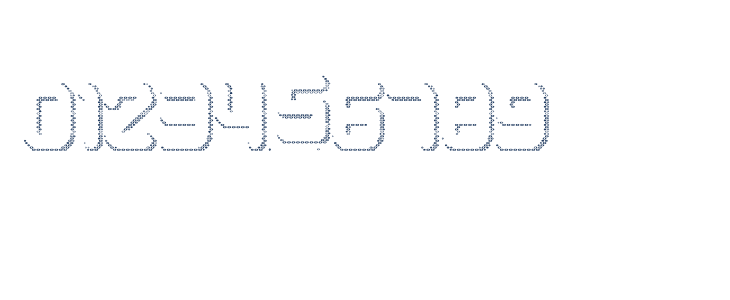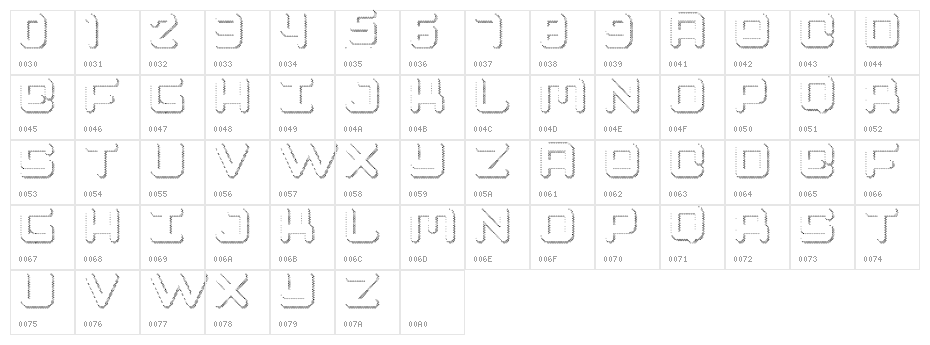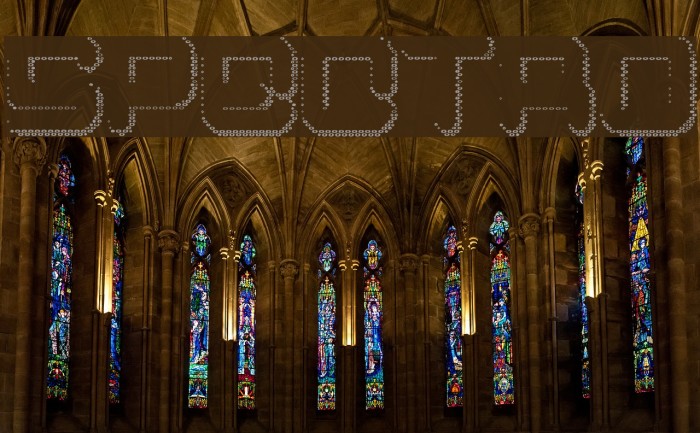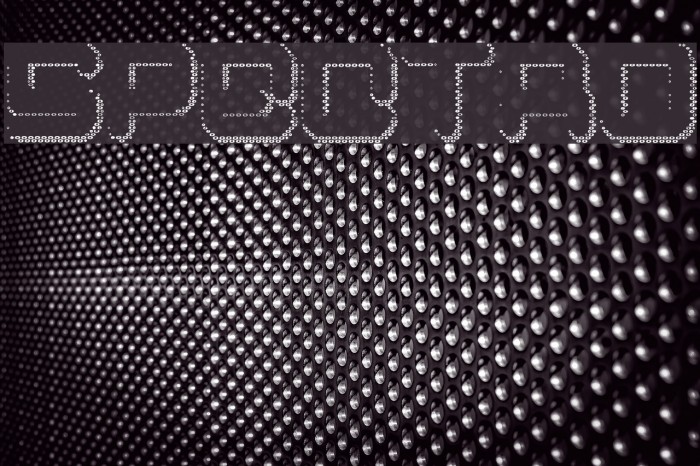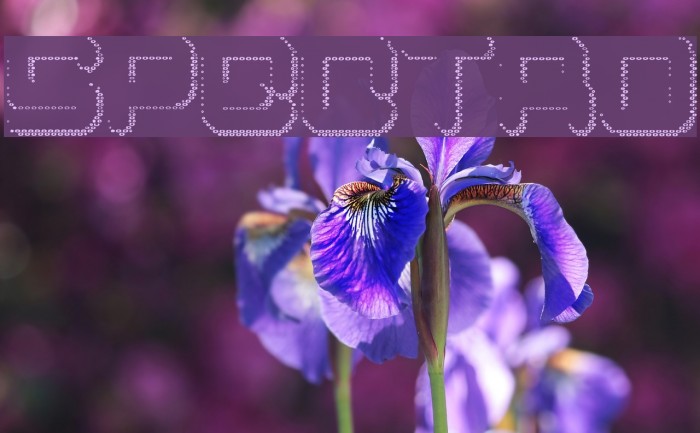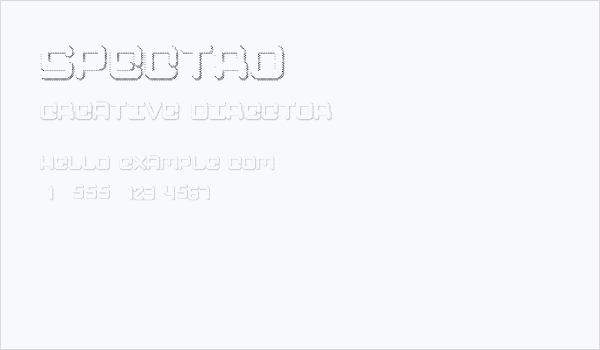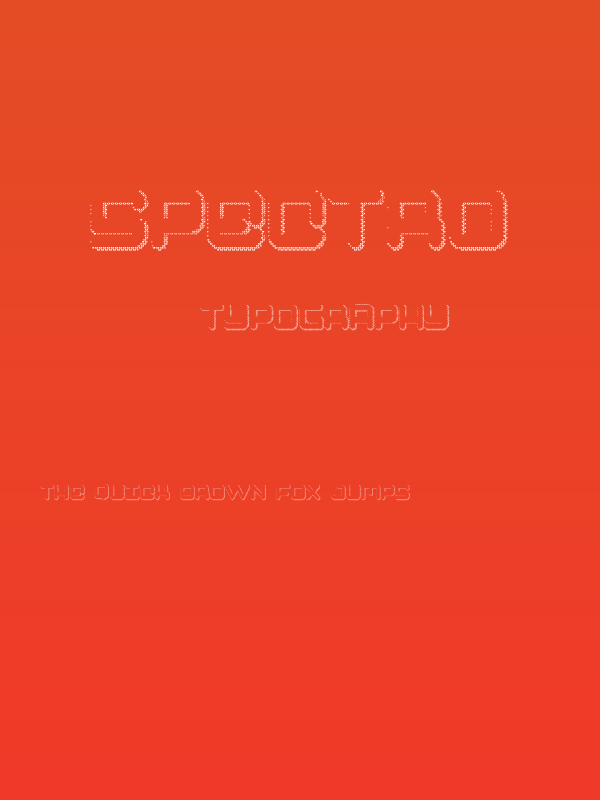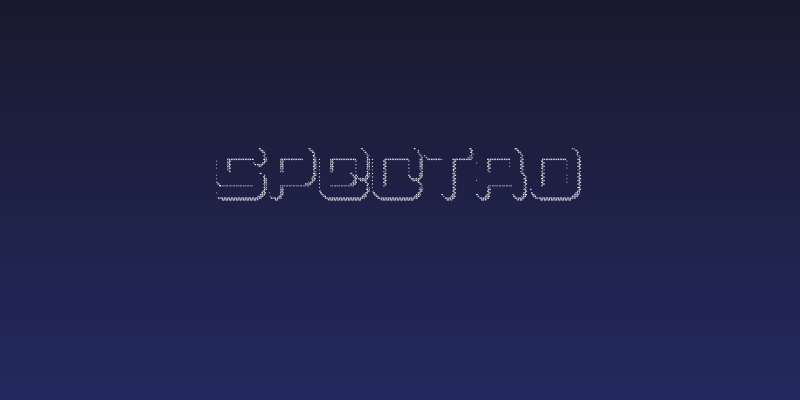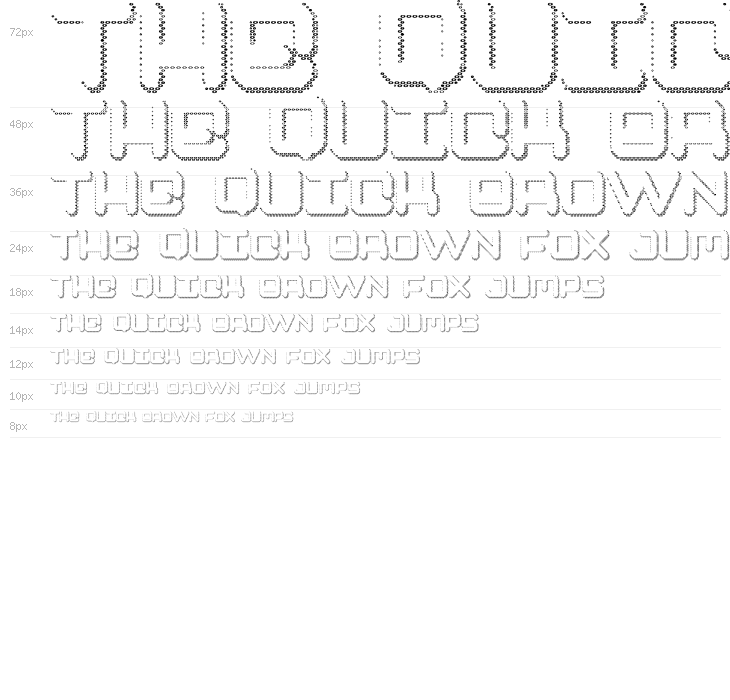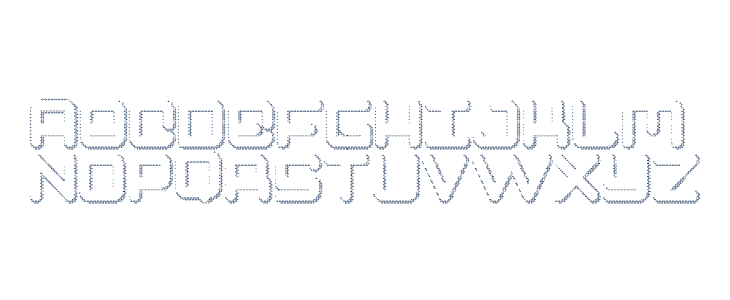
Spectro Font
Spectro Description
This font features a unique, futuristic design with a dotted, pixel-like appearance. Each character is composed of small, evenly spaced dots that form the shape of the letter or number, giving it a digital and modern aesthetic. The characters are uniform in height and width, creating a cohesive and structured look. The style is reminiscent of early digital displays or LED screens, making it ideal for projects that require a tech-savvy or retro-futuristic vibe. The font maintains legibility despite its unconventional form, with clear distinctions between each character. Its geometric structure and consistent dot pattern contribute to its distinct and memorable appearance.
| Use Case | Logos, Headlines, Digital displays |
| Proposed Projects | Ideal for tech-themed designs, digital art projects, retro-futuristic branding, or any creative work that requires a modern, digital aesthetic. |